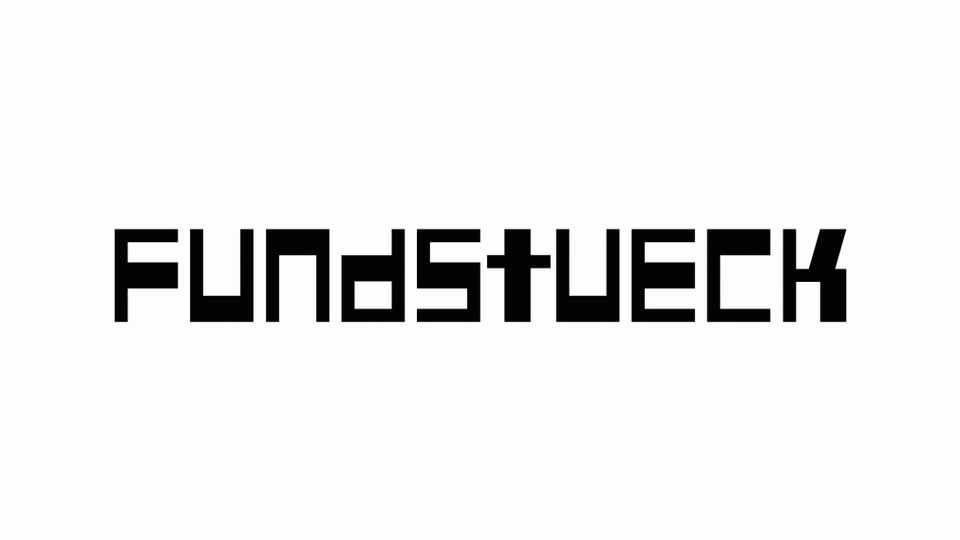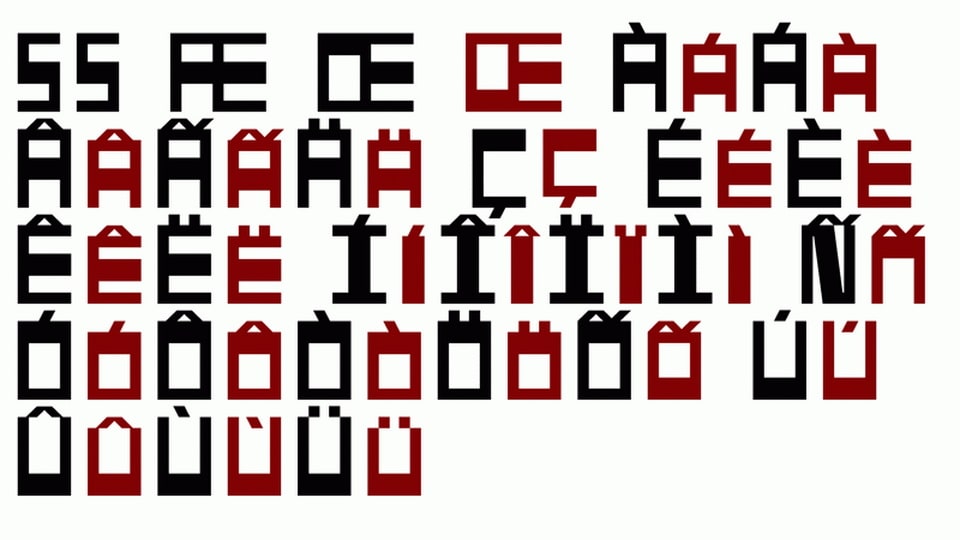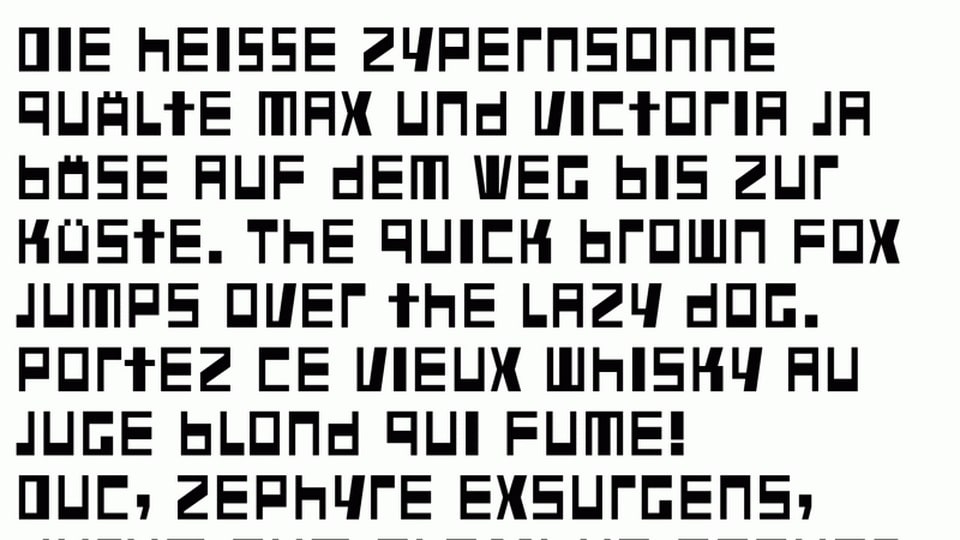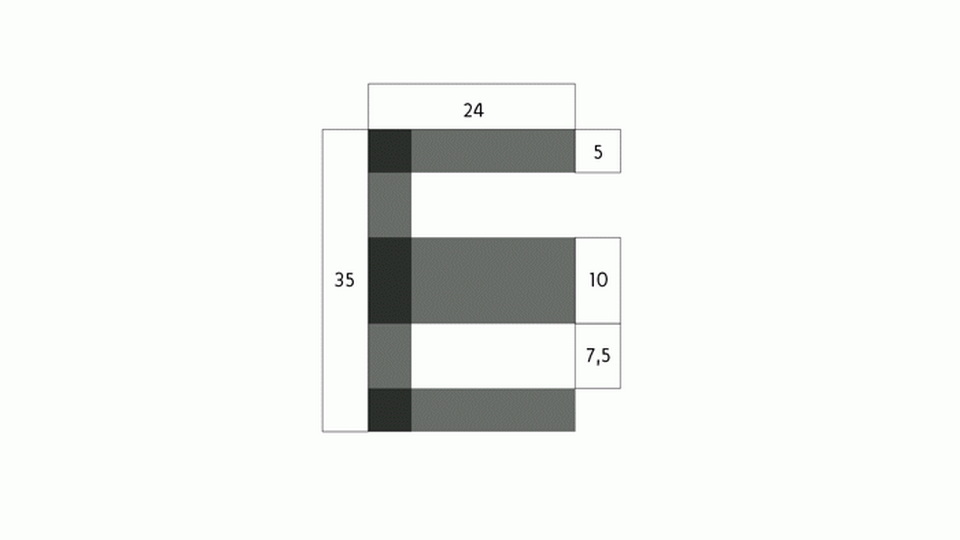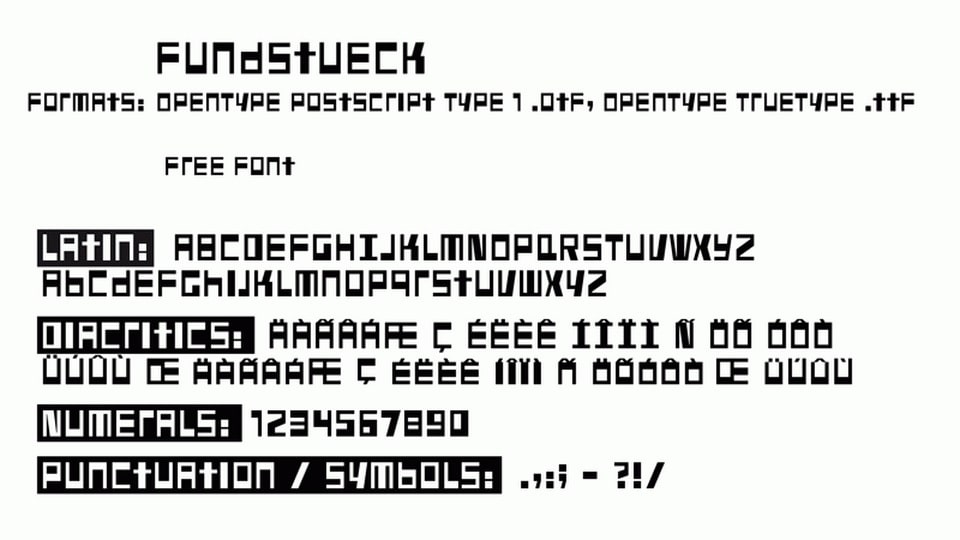
Fundstueck is a display typeface inspired by a rusty piece of metal, a coarse but decorative font was created.
Fonts can be so simple. That is what I was thinking as my attention was turned to this rusty piece of metal. Only a few centimeters in size, I couldn’t imagine which purpose it might truly serve. But my eyes also saw an E, even a well-proportioned E: a width to height ratio of approximately 2/3, black and fine strokes with a 1/2 proportion — could I create more characters on this basis?
Thought it, did it. The form is based on a 5mm unit.
The strikingly thick middle stroke of E suggests that the emphasis is not necessarily placed on the typical stroke, and likewise with the other characters. But if the font is going to be somewhat legible, then you cannot leave out slanted strokes completely. Eventually I found enough varying solutions for all letters of the alphabet and figures.
A font designed in this way doesn’t really have to be extremely legible, which is why I forwent creating lower case letters.
Nevertheless, Fundstueck still contains some diverse forms in the layout of upper and lower case letters. Thus, the typeface is a bit richer in variety.
Fundstueck includes only the alphabet and the usual Western European accents (without the Scandinavian).
Only the most necessary punctuation is included.
By the way — the “lower” letters with accents and umlauts stay between the baseline and cap height. And with that, you get wonderful ribbon-type lines.